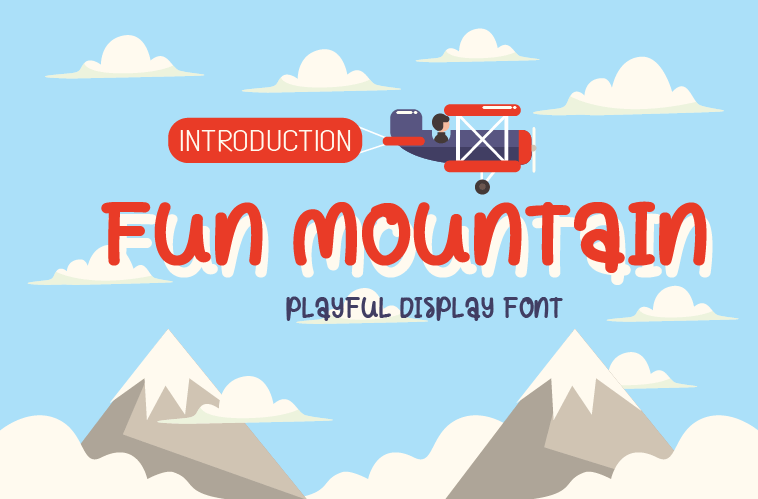
Font name: | Fun Mountain |
Author: | wildan suprian syah |
Note by wildan suprian syah | |
simple, unique, and cute font. Suitable for funny design product. contact : wildancarbon@gmail.com other font: https://www.creativefabrica.com/ref/366605/ |